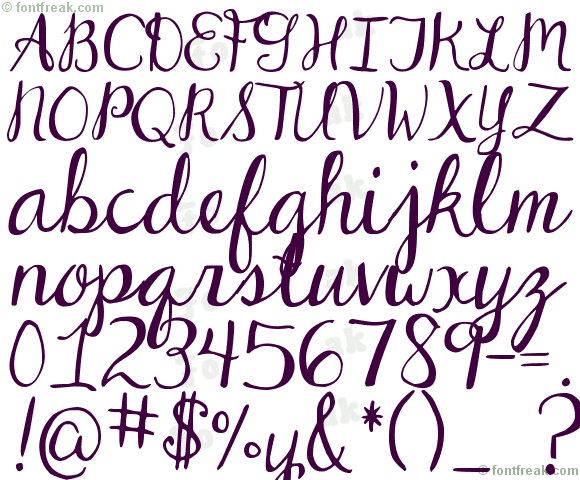
The DJB Dear St. Nick font, crafted by Darcy Baldwin, is a delightful handwritten typeface that exudes charm and whimsy. This decorative font features a playful yet elegant style, characterized by its fluid strokes and a consistent medium weight that enhances its legibility. The gentle curves and graceful loops of each letter create a warm, inviting feel, making it perfect for a range of creative applications. The spacing between characters is thoughtfully designed, allowing for easy readability while maintaining a cohesive look.
This font shines in various use cases, particularly in crafting wedding invitations that require a personal touch. Its playful nature makes it ideal for holiday greeting cards, adding a festive flair to any message. Additionally, DJB Dear St. Nick is an excellent choice for restaurant menus, where it can give a unique identity to the dining experience. Graphic designers and content creators will find this font suitable for social media graphics, where a friendly and approachable tone is desired. Small business owners looking to enhance their branding materials will also benefit from incorporating this font into their logos and promotional content.
The target audience for DJB Dear St. Nick includes graphic designers, small business owners, and anyone seeking to add a personal touch to their projects. Its versatility and charm make it a go-to font for those who value creativity and individuality in their designs.
What sets the DJB Dear St. Nick font apart is its ability to evoke emotion while remaining functional. It captures the essence of handwritten notes, offering a nostalgic touch that can elevate any project. For those interested, the DJB Dear St. Nick font free download is an opportunity to bring this enchanting typeface into your design toolkit.